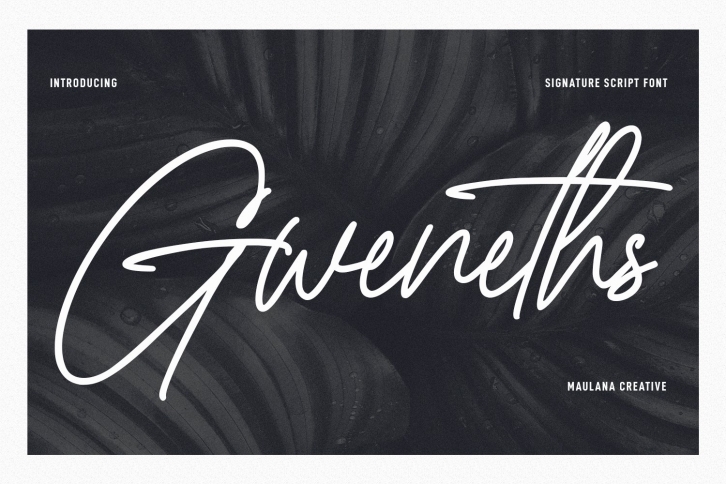
Gweneths Signature Script is a great font that was designed by Maulana Creative. Imagine the amount of combinations you can create using this font! The archive is 8.84 MB and it was released on November 10, 2022. Gweneths Signature Script looks beautiful on wedding invitations, greeting cards, logos, posters, labels, t-shirt designs, logos, business cards and is perfect for use in ink or watercolor works, fashion, magazines, packaging and food menus, children's books and more!